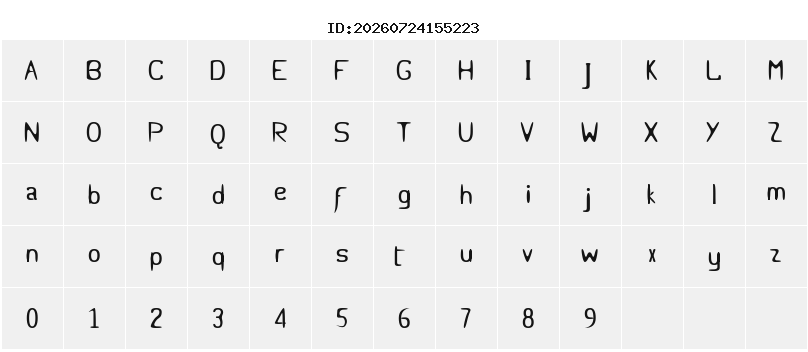
• Font Name: Micursif
• Manufacturer: Gaël Chrétien
Micursif.ttf is a modern, elegant sans-serif font designed for ultimate readability and visual harmony. Perfect for branding, headlines, web design, and print materials.